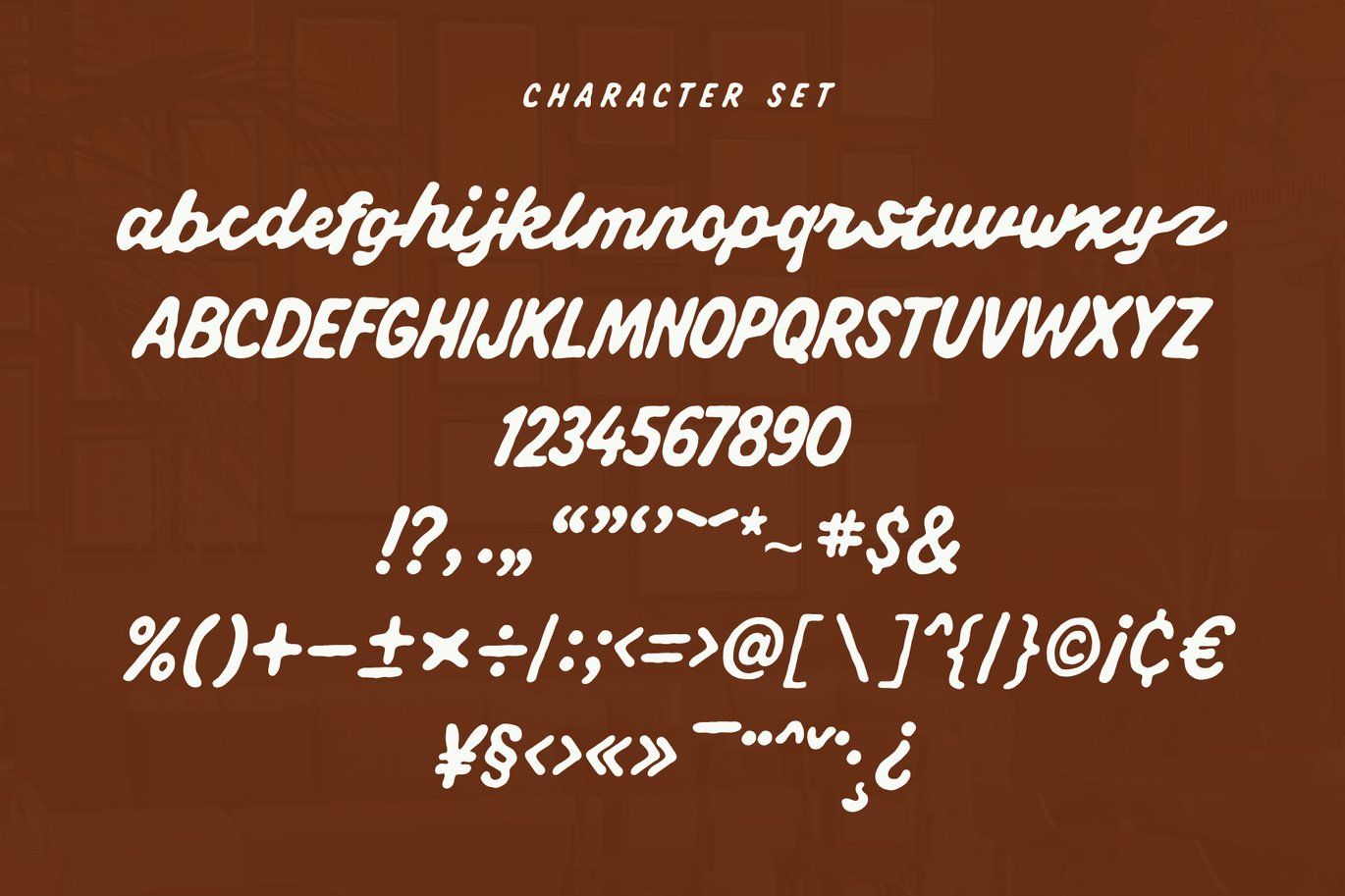
Oldport Script – Nostalgic Handwritten Typeface Font
Oldport Script – Nostalgic Handwritten Typeface Font is a versatile typeface ideal for various projects, including logos, branding, posters, blog headers, advertisements. The free version includes a full set of uppercase and lowercase letters, available in OTF, TTF, WOFF format.